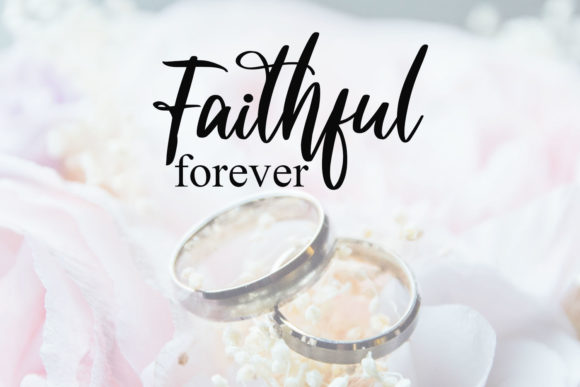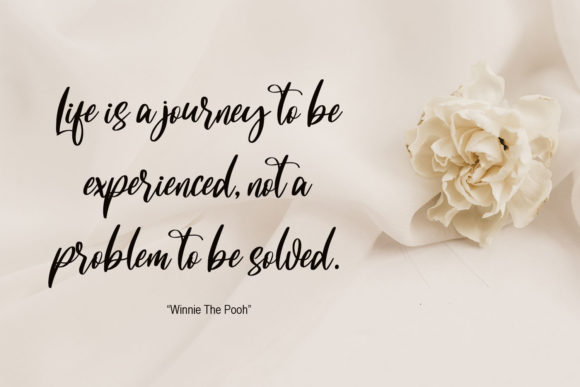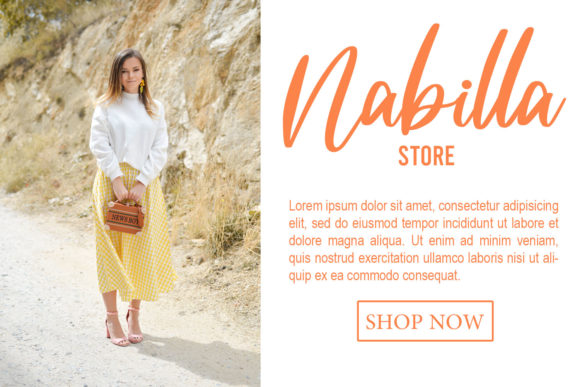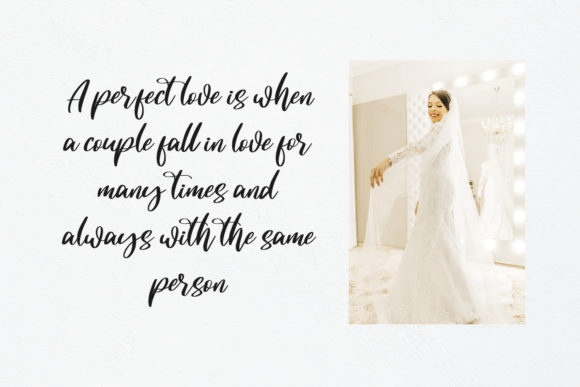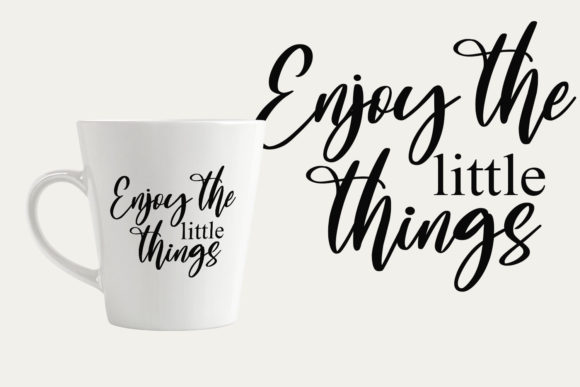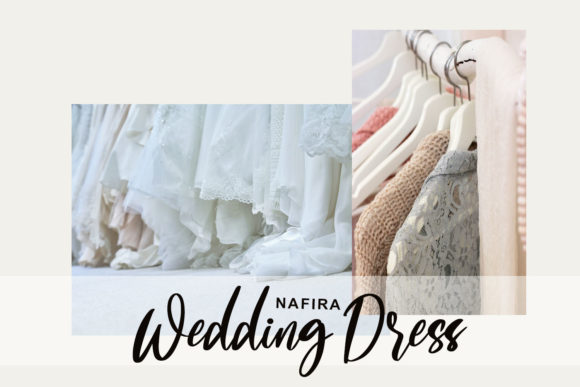
About Love Story Font
Love Story is a font that exudes loveliness and timelessness in its beautifully handwritten style. With its unique and captivating touch, it becomes the best choice for creating eye-catching logos, branding, and quotes. Each letter is infused with a beautiful charm, breathing life into your designs and making them truly unforgettable!
The charm of Love Story lies in its ability to convey emotions and sentiments with a heartfelt touch. Whether you’re designing a romantic logo, a heartwarming quote, or a brand that speaks to the heart, this font adds a special allure that resonates deeply with your audience.
Every letter in Love Story carries a distinct personality, contributing to a harmonious and visually captivating whole. The carefully crafted strokes and elegant curves create an eye-catching appeal that captures attention and draws viewers into the story you’re conveying.
As you immerse yourself in Love Story, you’ll witness how it transforms your designs into enchanting visual experiences. It enhances your logos and branding with a touch of elegance and authenticity, making them truly stand out in a competitive landscape.
Embrace Love Story as your go-to font for creating designs that evoke emotions and tell meaningful stories. Its timeless quality ensures that your work remains relevant and impactful, standing the test of time.
With Love Story as your creative companion, your designs will come alive with a touch of love and beauty. The font’s expressive nature allows you to convey your message with clarity and charm, forging a genuine connection with your audience.
Discover the magic of Love Story and let it be the key to unlocking the true potential of your design projects. Embrace its lovely and timeless essence, and experience the joy of creating captivating visuals that leave a lasting impression on all who encounter them. Love Story is the font that weaves a tale of beauty and inspiration, making your designs unforgettable and truly special.